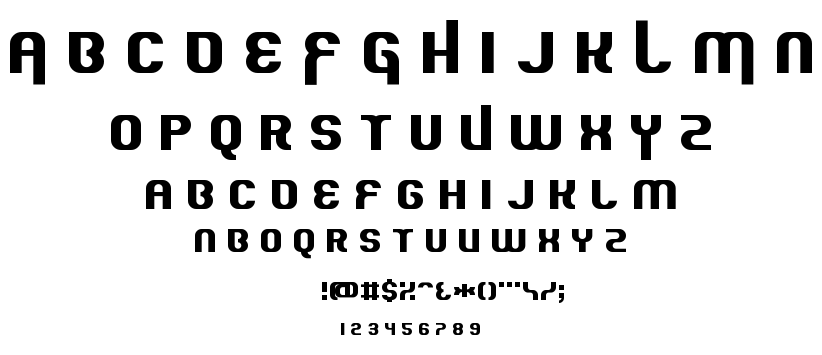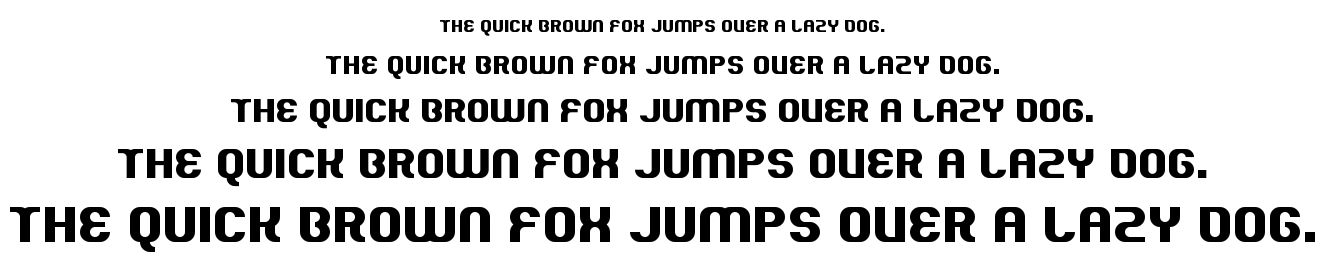
Inspired by, but ended up nowhere near like, the title card font for Ballykissangel. Capitals have ascenders/descenders, lower case is the same set of capitals but without those (since they don’t look great in certain alignments), mix and match for the best visual effect.